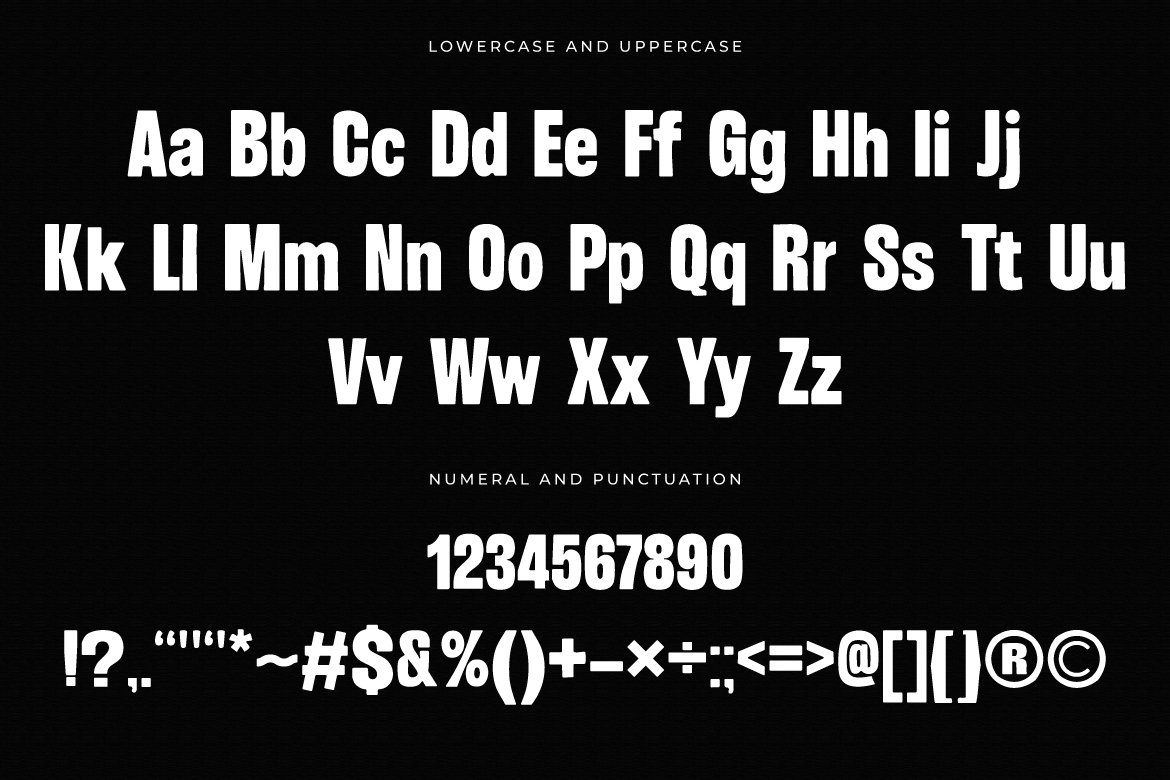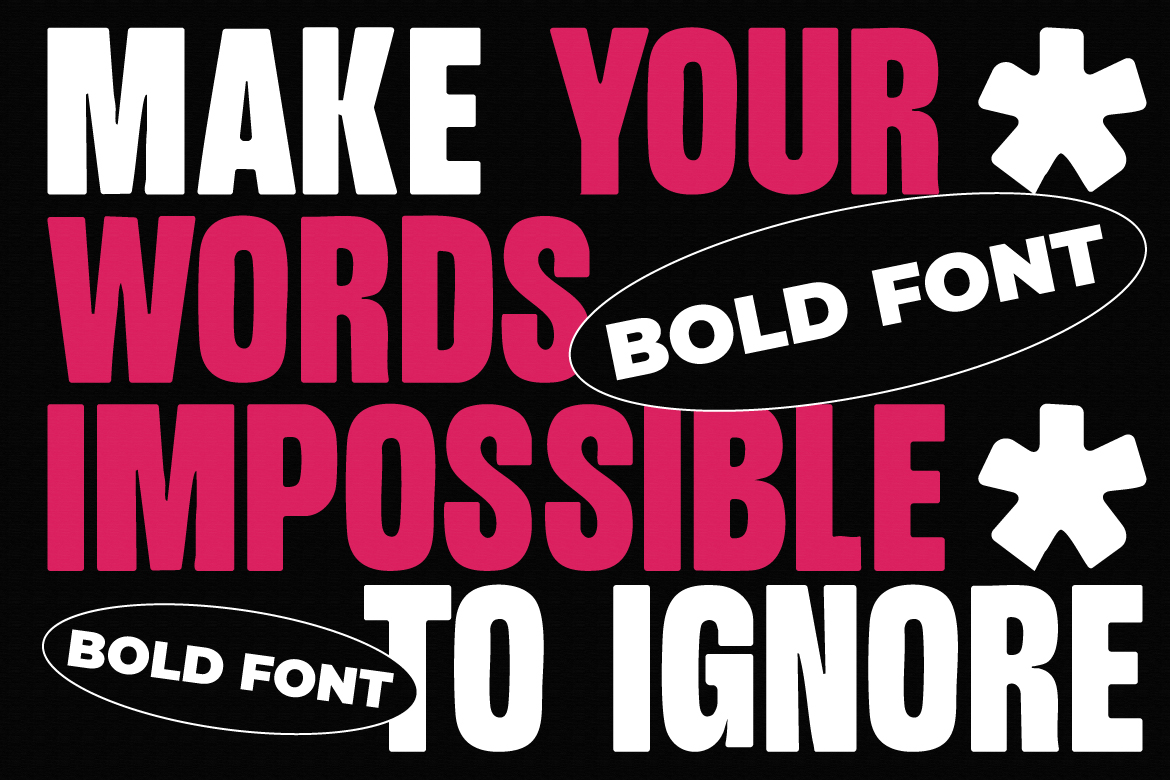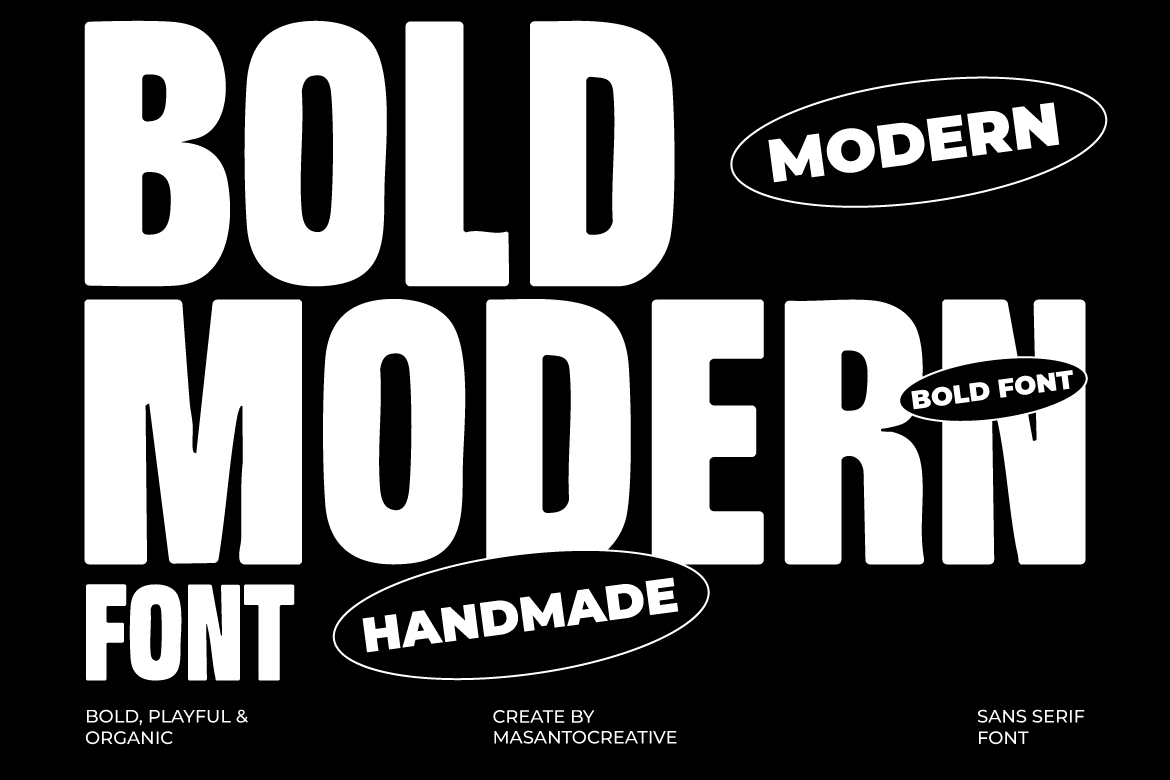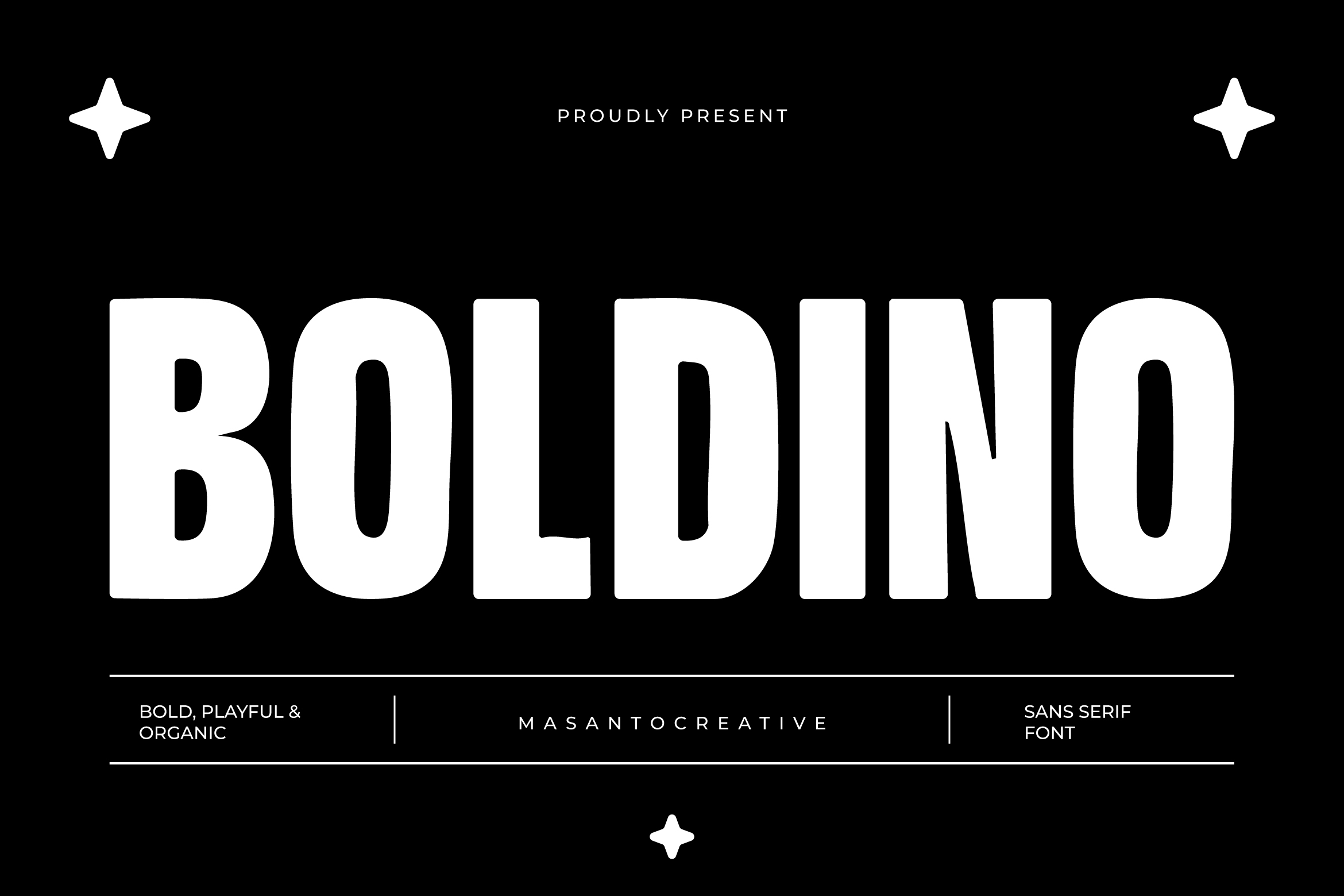
Boldino is a playful bold sans serif font created by masantocreative and published on Kangfont.com. Released on August 24, 2025, this unique typeface combines bold confidence with a friendly, handmade touch. Designed for creative display use, Boldino brings character, warmth, and modern style to posters, branding, packaging, advertising, retro-inspired graphics, and digital content.
If you are searching for a bold playful sans serif font that stands out, Boldino might be the perfect choice.
Key Features of Boldino Font
Boldino is designed as a display font with strong readability and a distinct personality. Its playful curves and handcrafted details make it versatile for multiple design fields. Here are the highlights:
- Font Styles: Uppercase, lowercase, numbers, punctuation, and symbols.
- Handmade Feel: A bold sans serif font with organic character shapes that add charm and creativity.
With its complete character set, Boldino is suitable for everything from logos and posters to web banners and social media graphics.
Why Designers Love Boldino
The popularity of Boldino font lies in its ability to grab attention while staying fun and approachable. Here are a few reasons designers choose Boldino:
- Perfect for Display Text
Whether for posters, ads, or headlines, Boldino’s bold weight ensures maximum visibility. - Ideal for Branding and Packaging
Brands in the food, beverage, and lifestyle industries can use Boldino to create a friendly yet modern identity. - Social Media Ready
In today’s fast-scrolling environment, Boldino helps your content pop out on Instagram, TikTok, or YouTube thumbnails. - Versatile Use
How to Use Boldino Effectively
To get the most out of Boldino bold sans serif font, here are some design tips:
- Pair with Contrasting Fonts
Use Boldino for titles and pair it with a clean, thin sans serif or serif font for body text to create balance. - Mind the Spacing
Since it’s a bold font, give enough breathing room around the letters to maintain readability. - Experiment with Color
Boldino works great in black and white, but try playful bright colors or retro gradients for modern visual appeal. - Think Display First
Best suited for short text, headlines, and brand names rather than long paragraphs.
Boldino vs. Similar Fonts
You might notice other fonts with similar names like Boldini or Boldina. While they sound alike, they serve different purposes:
- Boldini by Luxfont: A decorative gradient color font, more experimental than Boldino.
- Boldina by Monotype: A professional family with multiple weights and less playful characteristics.
Compared to them, Boldino is simpler, more playful, and perfect for designers looking for a bold display font with personality.
Final Thoughts: Is Boldino Right for You?
Bring your designs to life with a font that’s bold, fun, and versatile—Boldino.